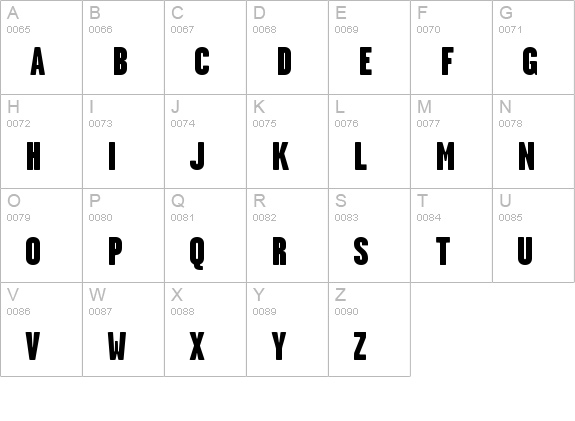
GarageGothic-Black Font Details
GarageGothic-Black is a maximum-weight, dramatic variant in the GarageGothic typeface family \xE2\x80\x94 well suited to maximum-impact headlines, posters, and packaging.
GarageGothic-Black font is a bold and captivating display typeface that exudes a dark and mysterious aura. Its strong and edgy letterforms are perfect for creating impactful headlines, logos, posters, and other graphic designs that demand attention. With its gothic-inspired design, GarageGothic-Black font brings a touch of the macabre and a hint of rebellion to any project. Its thick and heavy strokes give it a commanding presence, while its sharp angles and unique character shapes add a sense of intrigue and excitement. What sets GarageGothic-Black font apart is not just its striking appearance, but also the fact that it is available for free. You can easily download this font and unleash its creative potential from FontsMarket.com. Whether you're a designer looking to add an element of darkness to your work or simply a font enthusiast seeking a unique typeface, GarageGothic-Black font is an excellent choice. Don't miss out on the opportunity to incorporate this captivating font into your next design project. Download GarageGothic-Black font for free at FontsMarket.com and let your creativity run wild.